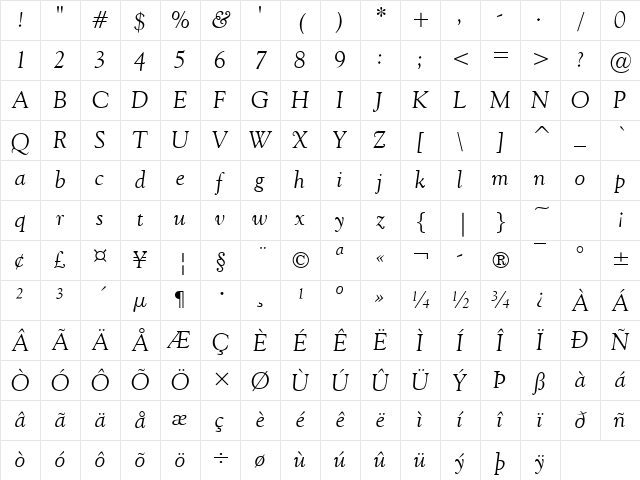
Cordial Italic Free Font
Cordial Italic
Complete Cordial Italic glyph index. Displaying only characters natively supported by Cordial Italic font.
Design Context for Cordial
Cordial is a composed and adaptable typeface that performs quietly and consistently across a wide range of design contexts. The slanted form adds forward momentum and visual energy.
Pro Tip: Use Cordial for emphasis, pull quotes, and subheadings where its slanted energy can add rhythm to the layout.